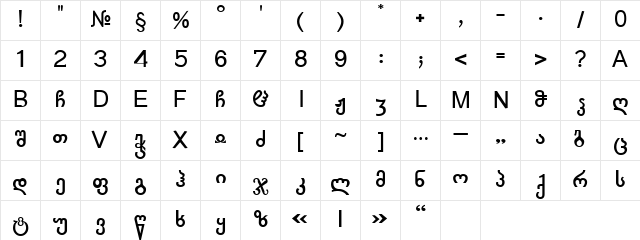
Malula_Ilia BoldA
Design Context for Malula_Ilia Typeface
Malula_Ilia is a composed and adaptable typeface that performs quietly and consistently across a wide range of design contexts. Its bold stroke weight gives it real presence on the page.